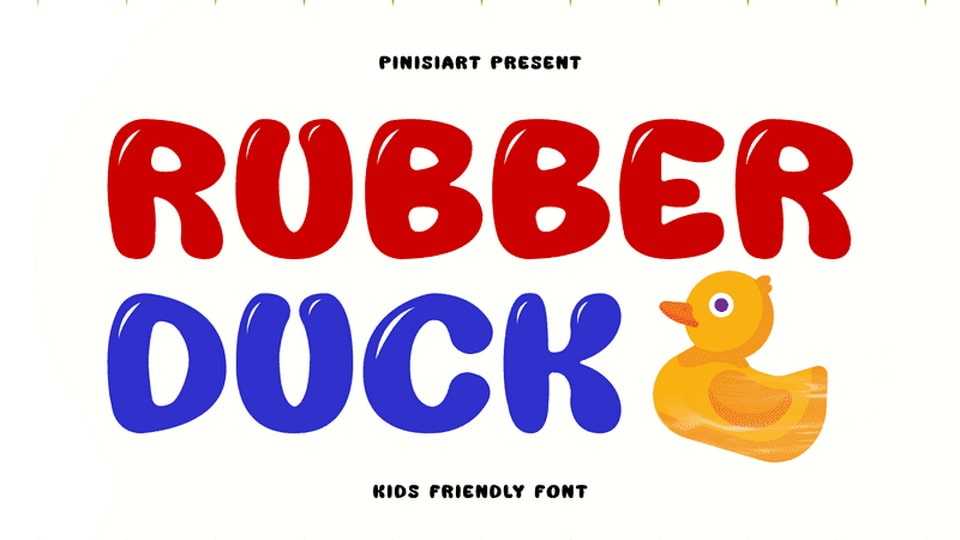
Download Rubber Duck font, a kids friendly typeface. Cute and friendly, with a balloon-style effect that emphasizes the cuteness and friendly feeling in it.